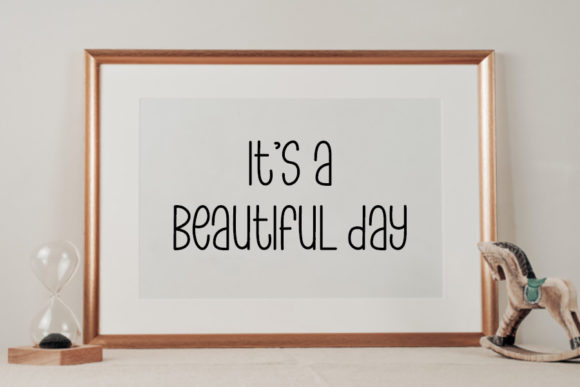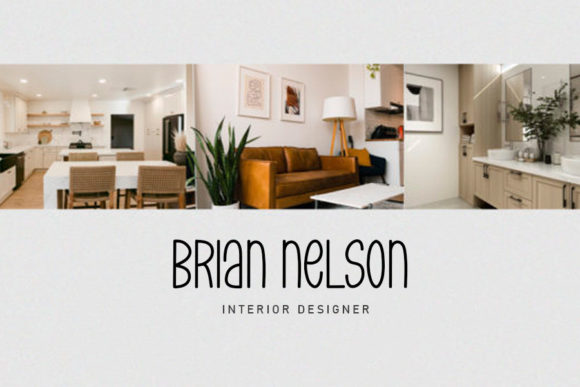
Afternoon Font
db-ku.com - Script & Handwritten -- Afternoon is a slim and graceful handwritten font. Fall for its ravishing style and use it to create gorgeous designs. This font is the perfect fit for all of your logos, branding, posters, and crafty DIY projects.